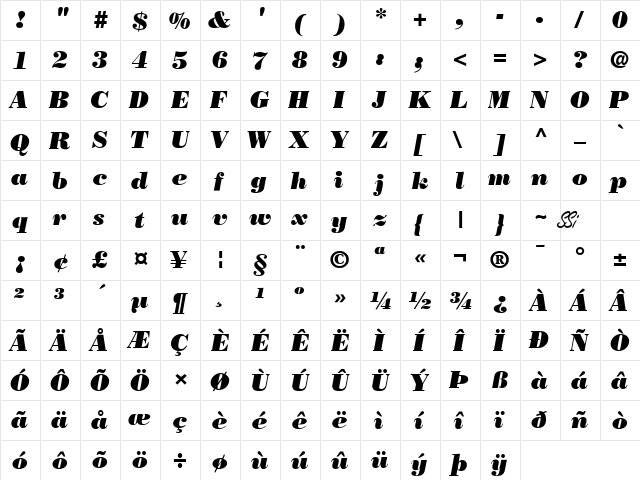
Bodoni Poster SSi Poster Italic
Design Context for Bodoni Poster SSi Typeface
Bodoni Poster SSi is a composed and adaptable typeface that performs quietly and consistently across a wide range of design contexts. The slanted form adds forward momentum and visual energy.
Pro Tip: Try Bodoni Poster SSi for annotation and caption copy alongside an upright companion — the contrast in angle creates a dynamic but ordered typographic system.